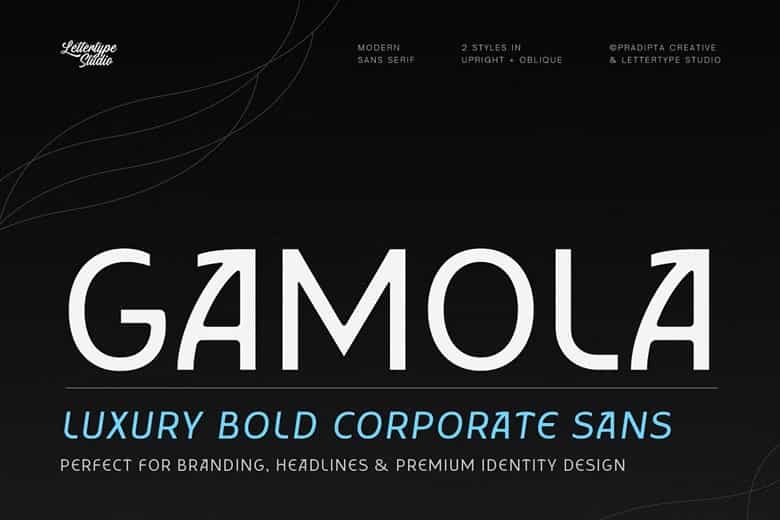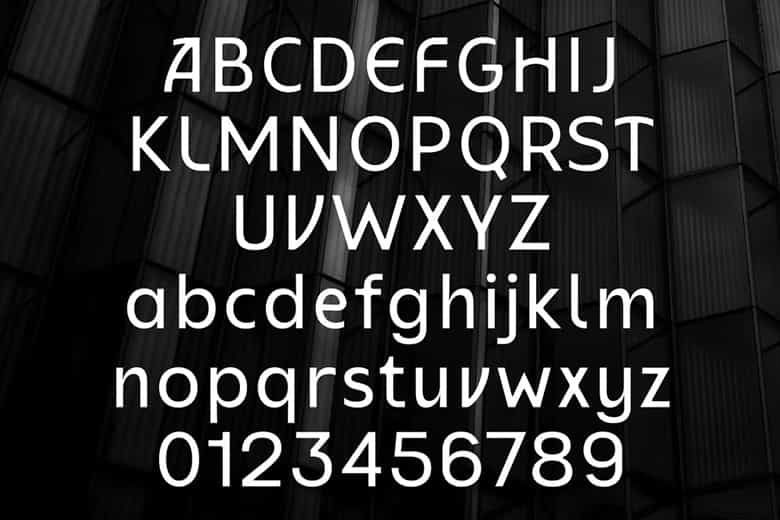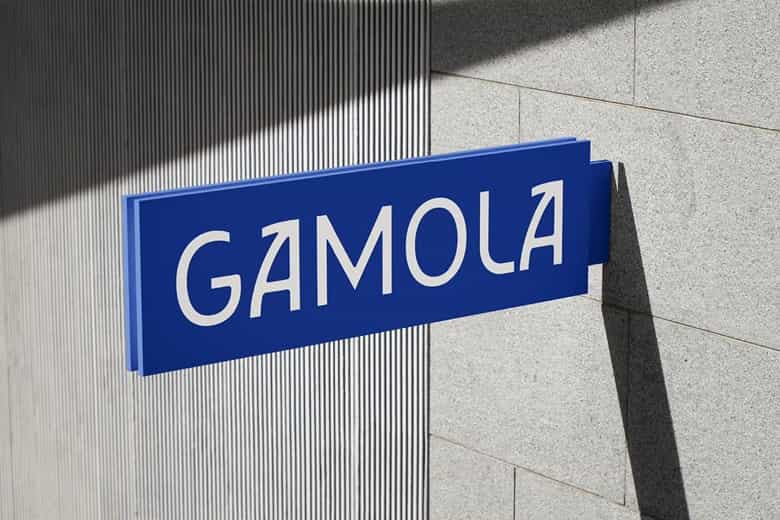
Gamola Font
Gamola is a high-impact luxury bold corporate sans serif typeface that is designed with premium branding and bold corporate in mind. Having clear geometric lines and smooth proportions, Gamola offers a powerful but delicate aesthetic that suits, ideally, logos, branding kits, technology related businesses, business presentations, and editorial headlines. Its loud and assertive design makes it unique yet up to date in its exquisiteness.